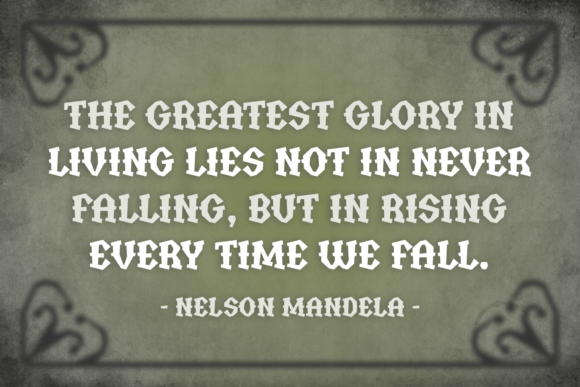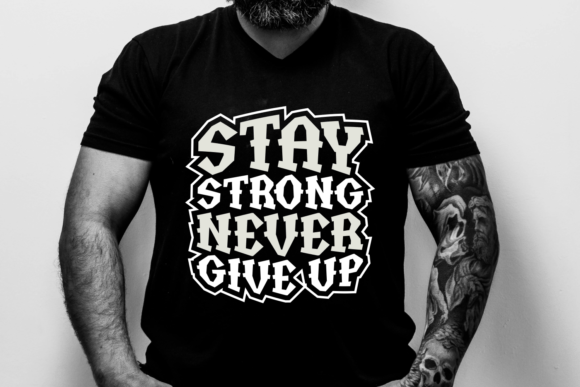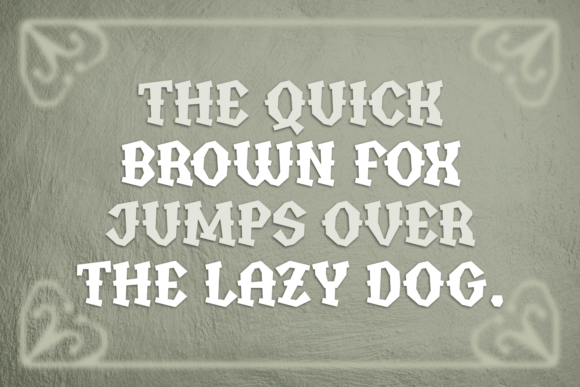
The Power of Darken Makota: A Fresh Take on Blackletter Typography
I still remember the design project that led me to discover the Darken Makota font. I was working on a branding campaign for a music festival, and I needed a font that would convey energy, power, and a touch of modernity while still paying homage to traditional Gothic styles. After hours of searching, I stumbled upon Darken Makota, and it instantly clicked. The bold, sharp letterforms and flowing, modernized details perfectly captured the vibe I was looking for. In this article, I’ll share my experience with Darken Makota, its features, and how to make the most of this dynamic font.
An Honest Review of Darken Makota
- ✨ Unique blend of traditional and modern elements: Darken Makota brings a fresh twist to the classic blackletter style, making it perfect for designs that require a bit of edge and sophistication.
- ✅ High versatility: This font can be used for a wide range of projects, from bold headlines and titles to more intricate design work, such as logos and branding.
- 💡 Excellent legibility: Despite its bold nature, Darken Makota remains surprisingly legible, even at smaller sizes, making it suitable for various applications.
While Darken Makota is an excellent font, there are a few things to keep in mind:
- 🤔 Limited use for body text: Due to its bold nature, Darken Makota is best used for headlines, titles, and short bursts of text. It may not be the best choice for longer body text.
- ⚠️ Requires careful pairing with other fonts: Darken Makota’s strong personality means it needs to be paired thoughtfully with other fonts to avoid visual overload.
The Backstory of Darken Makota
Darken Makota was created with the goal of reimagining traditional blackletter typography for the modern era. The designer aimed to infuse the classic Gothic style with a sense of movement and energy, making it suitable for a wide range of creative projects. By combining sharp, bold letterforms with flowing, modernized details, Darken Makota was born—a font that is both powerful and versatile.
Q: What makes Darken Makota unique?
A: Darken Makota stands out due to its unique blend of traditional Gothic elements and modern, flowing details. This combination gives it a fresh and energetic feel.
Q: Is Darken Makota suitable for body text?
A: While Darken Makota is incredibly versatile, its bold nature makes it more suitable for headlines, titles, and short bursts of text rather than longer body text.
Q: Does Darken Makota support OpenType features?
A: Yes, Darken Makota supports various OpenType features, including stylistic alternates, ligatures, and swashes, which can be accessed in compatible software like Adobe Photoshop and Illustrator.